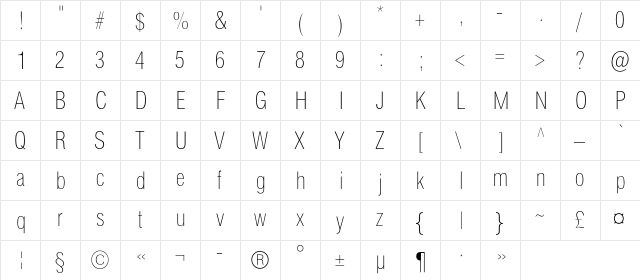
HeliosCondThinC Regular Font Preview
Design Context for HeliosCondThinC Typeface
HeliosCondThinC takes a measured approach to typography — its balanced proportions and neutral character make it a reliable workhorse for both digital and print work. The delicate stroke weight brings airiness and refinement to layouts. Its narrow stance lets it pack a punch even in space-constrained designs.